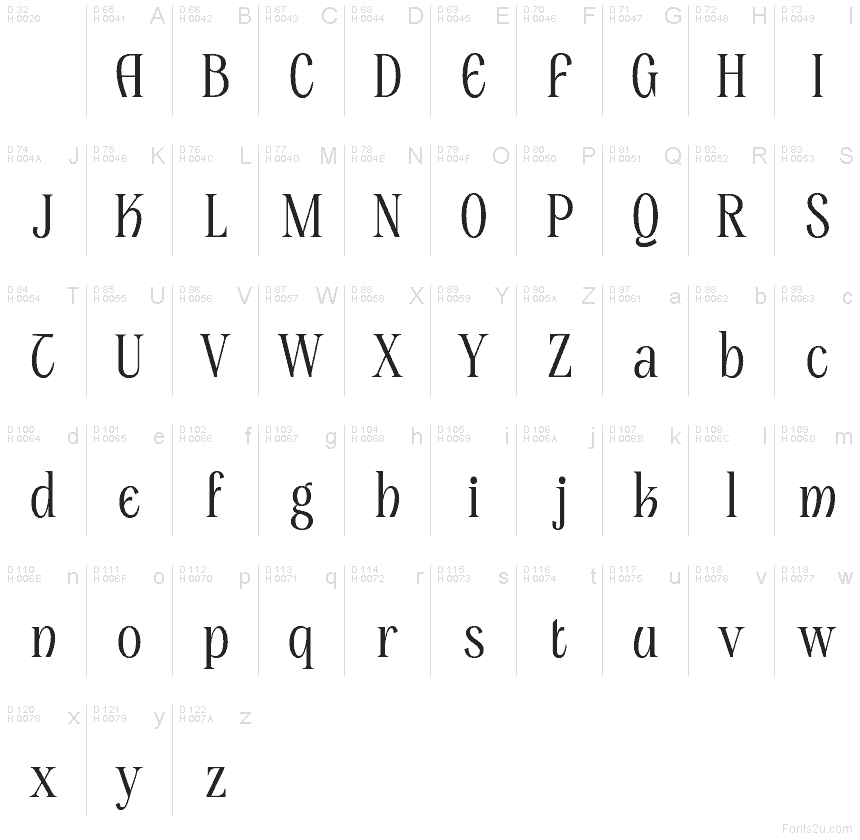
CS Asbury Regular Demo
CS Asbury font by Craft Supply Co. is a free condensed vintage serif display font. It solves a common headache: fitting long, elegant headlines into tight spaces without losing character. Tall proportions, high contrast strokes, and flared, slightly inky serifs create a refined rhythm that feels old-world without going dusty. The narrow width keeps lines tidy, while the soft curves add a touch of warmth that heavy slab serifs can’t.
Using CS Asbury gives titles a stately presence that shines on posters, book covers, whiskey or apothecary labels, restaurant menus, editorial headers, signage, and event invitations. This free font holds together beautifully at large sizes and stays legible when tracked a hair for smaller headings. Pair it with a calm grotesk sans to let its textured details do the talking.